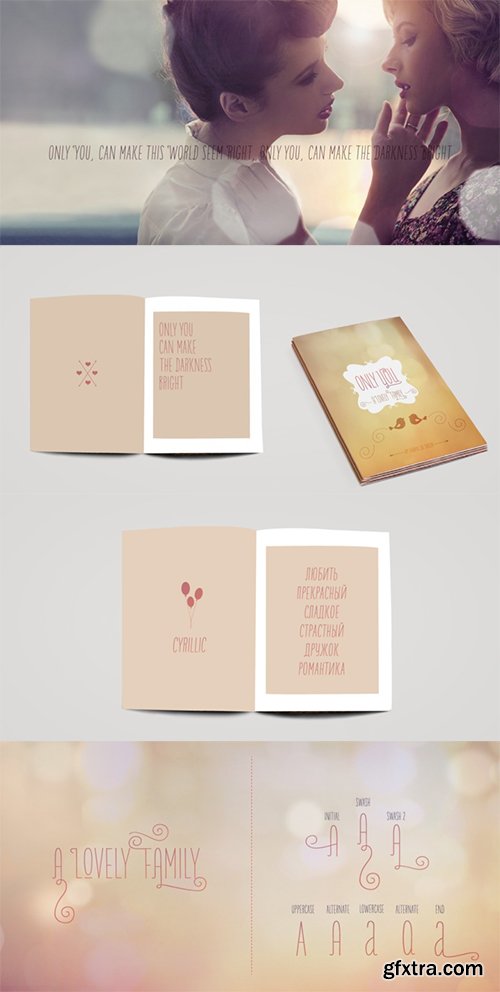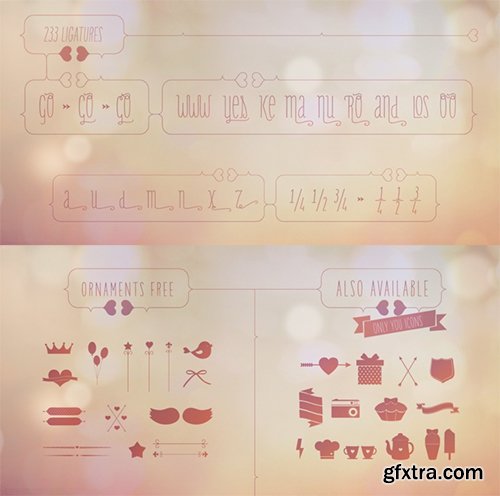
Only You - Romantic Font Family
The Special Encounter Between Uppercase and Lowercase Letters
- Only You is handmade, and specially romantic. It was made to brighten your projects, turning everything more beautiful. The special encounter between uppercase letters and lowercase letters is perfect. Only You is unicase, with 888 glyphs, and what’s better: it has one special alternative for all letters as uppercase, and that creates an infinity of combinations.Only You is brilliant, gorgeous, and multilingual - it also includes the Cyrillic version! It has more than 200 ligatures, several alternates and swashes. You can also obtain an unlimited number of possibilities in your layout - there are several possibilities for starting and finishing a word. Do you want some more? You should take a look at Only You Icons with more than 300 options between icons, ribbons and frames that will make your project very attractive and romantic.